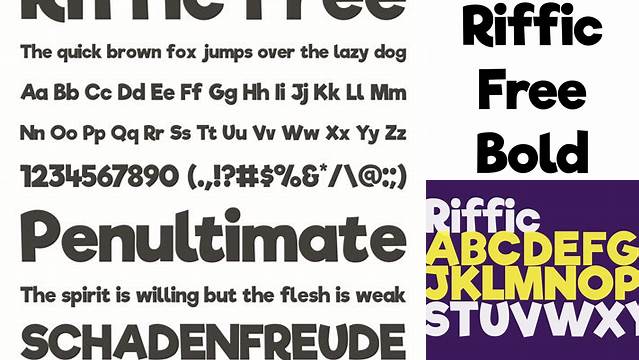
Riffic Free Font Bold: The Ultimate Design Resource
Hey design enthusiasts! Are you on the hunt for a font that screams personality and grabs attention? Look no further than Riffic Free Font Bold! This font is a powerhouse, perfect for everything from eye-catching headlines to stylish branding. In this article, we're diving deep into what makes Riffic Bold so special, exploring its versatility, and showing you how to harness its power to elevate your designs. Let's get started, shall we?
1. Diving into the Aesthetics of Riffic Bold
Alright, guys, first things first: what makes Riffic Free Font Bold so visually appealing? Well, it's all about that balance. This font hits you with a strong, confident presence thanks to its bold weight, but it's also got a touch of playfulness that keeps it from feeling too serious. The letterforms are clean and modern, making it incredibly readable, even at larger sizes. Think about those big, bold headlines you see on websites or in print ads – Riffic Free Font Bold is often the star of the show. It's designed to make a statement, to be noticed, and to communicate a message with impact. The curves and angles are carefully considered, creating a harmonious visual experience that’s easy on the eyes. This isn't just a font; it's a design tool that lets you inject a dose of personality into any project. Whether you're a seasoned designer or just starting out, the aesthetic appeal of Riffic Free Font Bold is hard to ignore. It's the kind of font that immediately elevates your work, giving it a professional and polished look. Imagine the possibilities! From posters and flyers to social media graphics and website headers, this font has got you covered. Its versatility allows it to blend seamlessly into any design style, whether you're going for a minimalist vibe or something more vibrant and expressive. Riffic Free Font Bold is more than just letters; it's a statement. It's a reflection of your creative vision, helping you communicate your ideas with boldness and clarity.
1.1. Visual Characteristics and Design Features
Let's get down to the nitty-gritty, shall we? When we talk about the visual characteristics of Riffic Free Font Bold, we're really talking about the specifics that make it so darn effective. Firstly, the weight is, obviously, bold! This means the strokes of the letters are thick and substantial, immediately grabbing the viewer's attention. But it's not just about being thick; the design features are carefully crafted to maintain readability, even at larger sizes. The letterforms are designed with a certain flow, allowing the eye to move smoothly from one letter to the next. Think about the curves of the 'R' or the assertive stance of the 'F' – these are not just random shapes; they are thoughtfully designed elements that contribute to the font's overall personality. The spaces between the letters and words are also carefully considered, ensuring that the text doesn't feel cramped or cluttered. This attention to detail is what separates a good font from a great one. The designers of Riffic Free Font Bold clearly understood the importance of balance, crafting a font that's both visually striking and highly functional. This attention to detail is evident in every aspect of the font, from the thickness of the strokes to the spacing between the letters. This allows it to be used in a wide range of applications while still maintaining its bold and impactful presence. The design features are carefully considered to make sure that the font is not just visually appealing but also highly readable, which is an essential factor for any font design.
1.2. Comparing Riffic Bold to Other Bold Fonts
So, how does Riffic Free Font Bold stack up against other bold fonts out there? Well, it's a bit like comparing apples and oranges, but let's break it down. There are a ton of bold fonts available, each with its own unique personality. Some are very geometric, like some of the sans-serif fonts, while others have a more rounded, friendly feel. Riffic Free Font Bold tends to land somewhere in the middle, offering a balance between modern and approachable. Compared to fonts that are overly geometric, Riffic Free Font Bold offers a bit more warmth and character. It's not as rigid, which makes it feel less cold and corporate. On the other hand, compared to fonts with a more playful or cartoonish style, Riffic Free Font Bold offers a level of professionalism and sophistication. It’s a great choice if you want to make a statement without sacrificing credibility. Other bold fonts might be designed for specific purposes, such as headlines or body text, whereas Riffic Free Font Bold is versatile enough to handle various design needs. This adaptability is a huge plus, especially for designers who want a font that can work across different projects. The subtle nuances in the design, such as the curves and the spacing, are what set it apart and give it a unique voice. When comparing fonts, it's essential to consider your project's needs. Does it need to be ultra-modern? Or does it need a touch of personality? That's where Riffic Free Font Bold comes in.
2. Practical Applications: Where to Use Riffic Bold
Alright, let's get practical, guys. Where can you actually use Riffic Free Font Bold? The short answer: just about everywhere! This font is a chameleon, adapting to various design needs with ease. It's incredibly versatile, making it a go-to choice for a wide range of projects. From marketing materials to website designs, it's got you covered. It is a versatile font that can be used in many applications, so you don't have to worry about its limitations. Because of its readability, Riffic Free Font Bold shines in headlines, subheadings, and any place where you want to immediately grab attention. Think about website headers, poster titles, or the main text on a flyer – it's perfect for making a strong visual impact. Its bold weight and clear letterforms make it easy to read, even at larger sizes. Plus, it's not just for print; Riffic Free Font Bold is equally effective in digital applications. You can use it in social media graphics, website banners, and even in the creation of logos. It's got that eye-catching quality that’s perfect for the online world, where you need to stand out from the crowd. And it's not just for big, flashy designs; Riffic Free Font Bold also works well in smaller, more subtle applications. Consider using it for call-out boxes, or even for emphasizing important details within a paragraph. It's a workhorse that can handle a wide range of tasks. The adaptability of Riffic Free Font Bold makes it an excellent choice for designers looking for a single font that can handle multiple roles. Whether you're creating print materials or digital content, this font can help you create a cohesive and impactful design.
2.1. Designing Eye-Catching Headlines and Titles
When it comes to designing eye-catching headlines and titles, Riffic Free Font Bold is your secret weapon. Its inherent boldness and clarity make it the perfect choice for grabbing attention in an instant. Think about it: your headline is the first thing people see, the first impression you make. It has to be impactful, it has to be memorable, and it has to communicate your message with clarity. Riffic Free Font Bold does all of this, and then some. The bold weight ensures that your text immediately stands out, while the clean letterforms guarantee that it's easy to read, even at a glance. This is crucial in a world where people are constantly bombarded with information. You have a few seconds to grab their attention, and Riffic Free Font Bold gives you the edge. In headlines, the font's strong presence immediately communicates the importance of the message. In titles, the font projects a sense of authority and professionalism. It says,